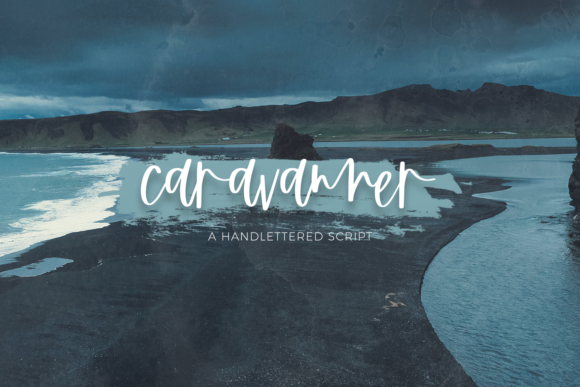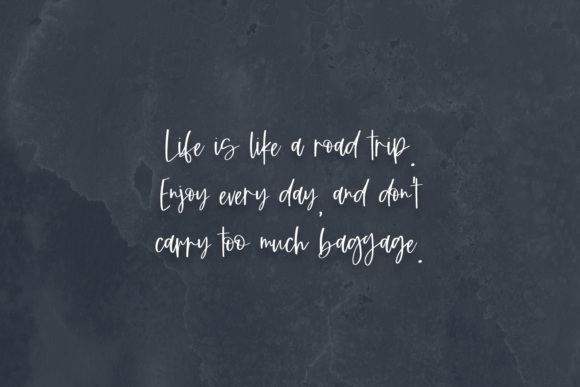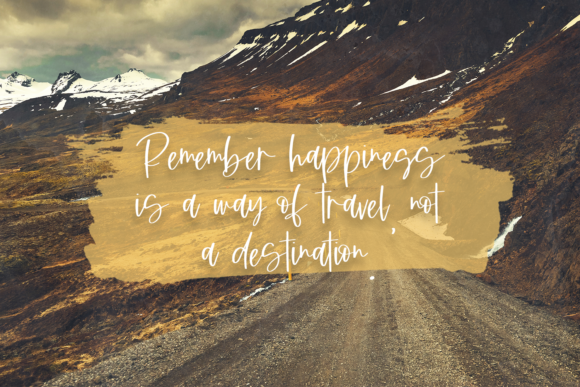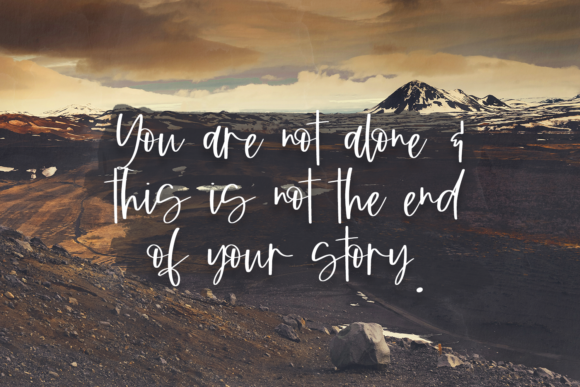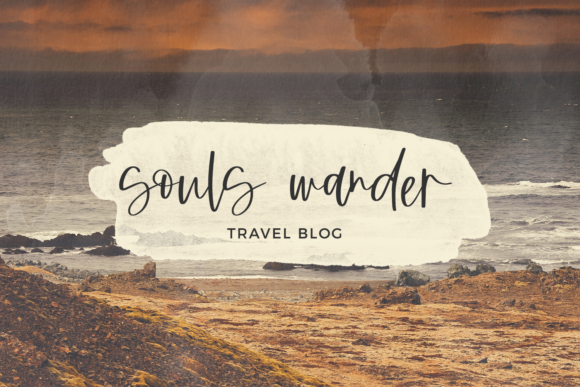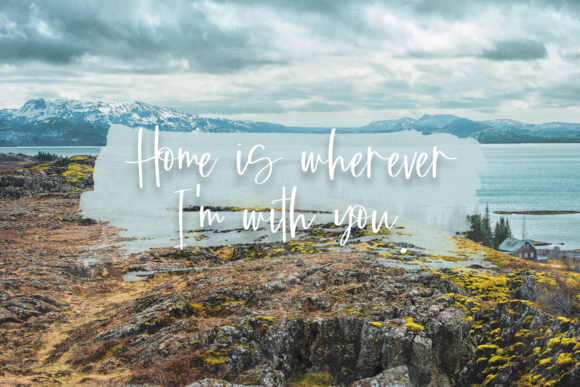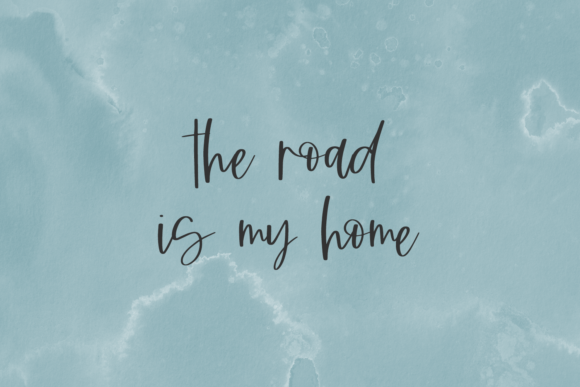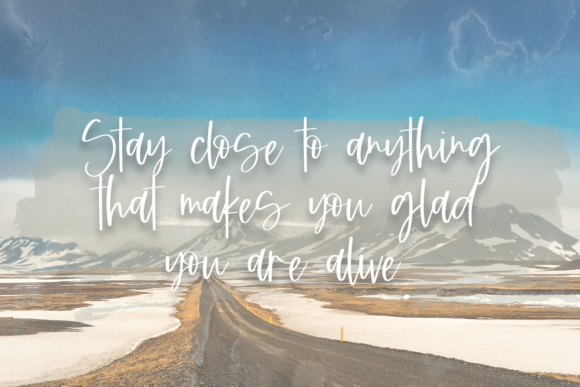
Caravanner Font
About Caravanner Font
Caravanner is a quirky and casual handwritten font. its friendly and relaxed style makes it incredibly versatile, fitting a wide variety of designs!